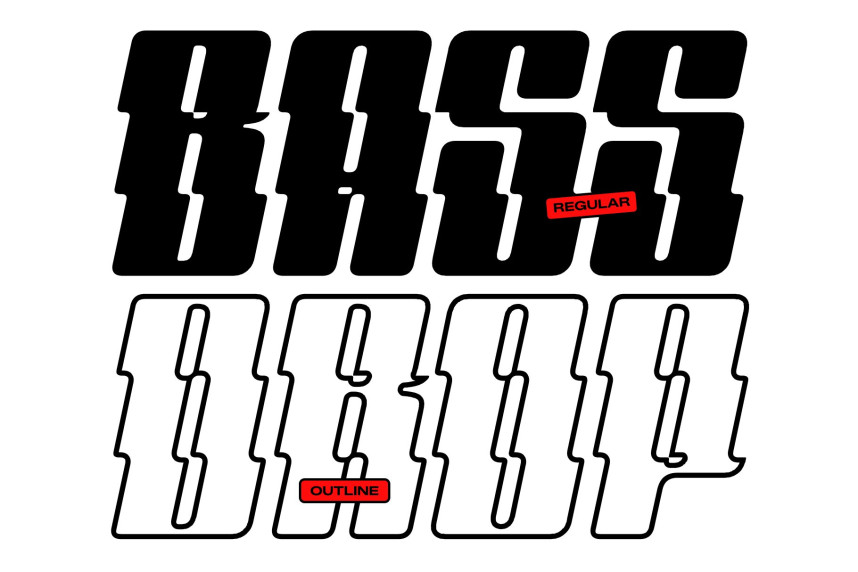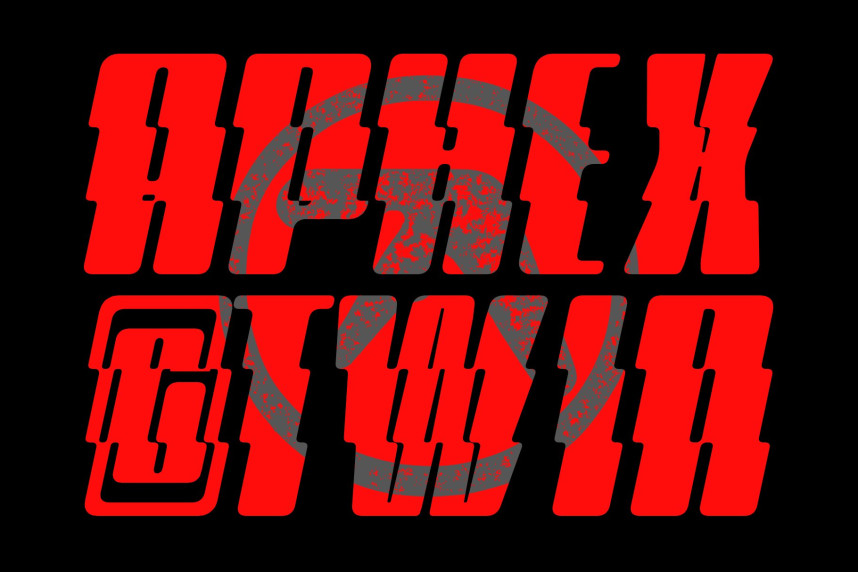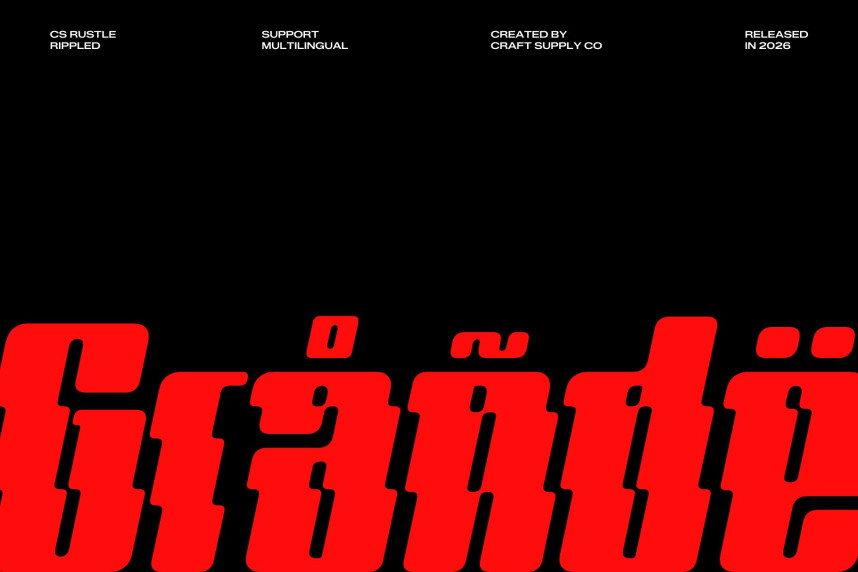
CS Rustle Rippled Font
CS Rustle Rippled Font – Condensed Sans Serif Font: Where Contemporary Precision Meets Fluid Wave Motion
Clean, Bold Forms with Modern Confidence
This is a condensed sans serif display font designed with a bold and clean-cut appearance. Its condensed proportions create a strong visual impact while maintaining a refined contemporary style. Built on precise geometric construction, the font delivers clarity, strength, and professionalism, making it ideal for projects that demand both attention and sophistication.